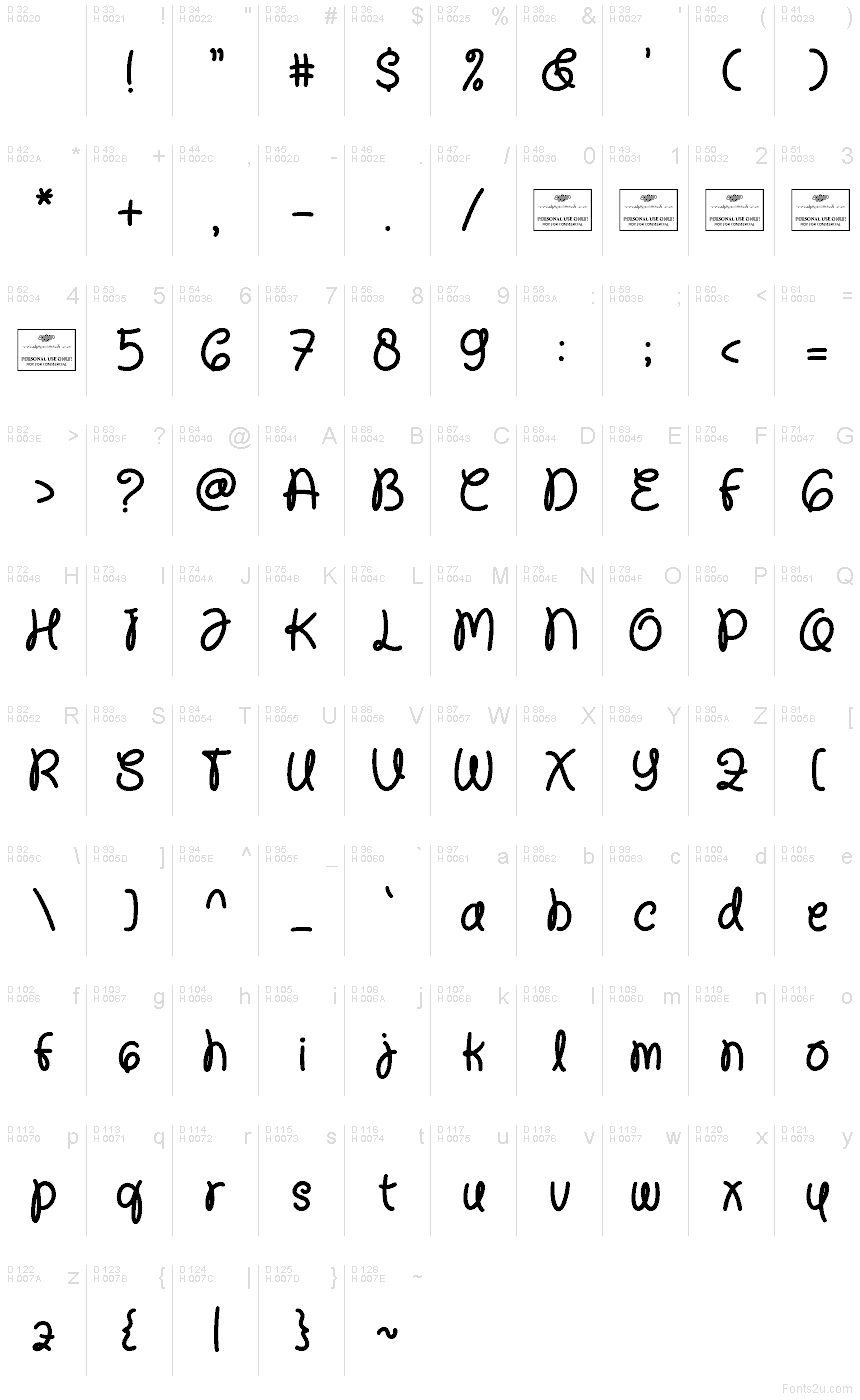
Enigma
Enigma font by Alpaprana Studio is a stunning modern handwriting font with an engaging freeform flow. Its fluid rounded shapes are elegant, and they create a beautiful connection between letters that enhances your message. Use this unique resource to improve your brand image the way you think best.